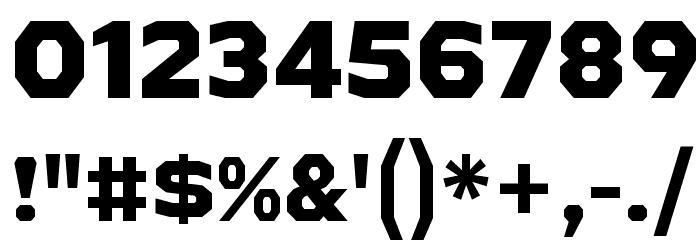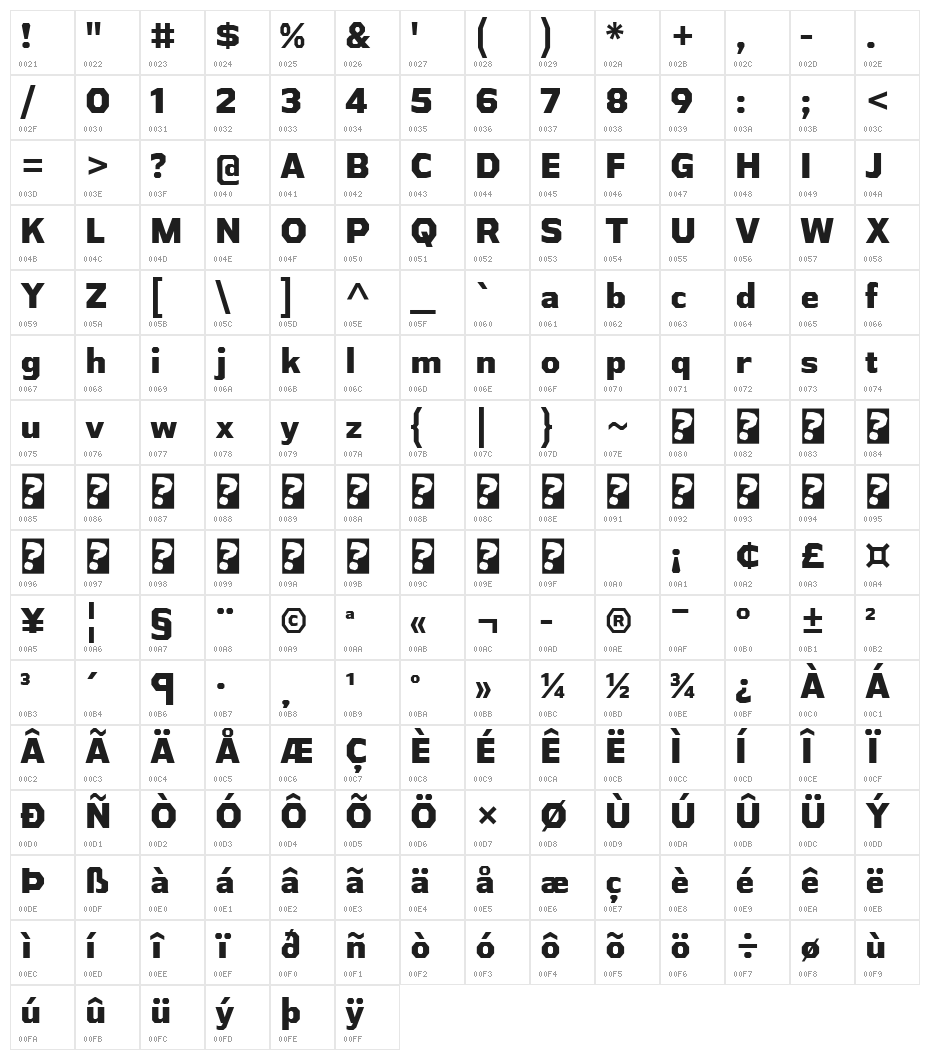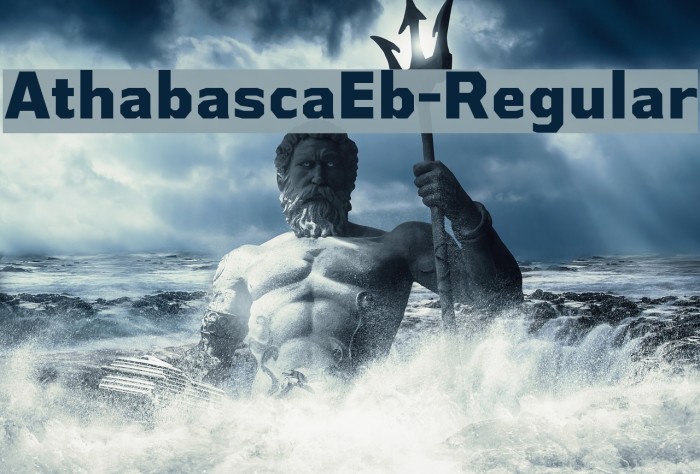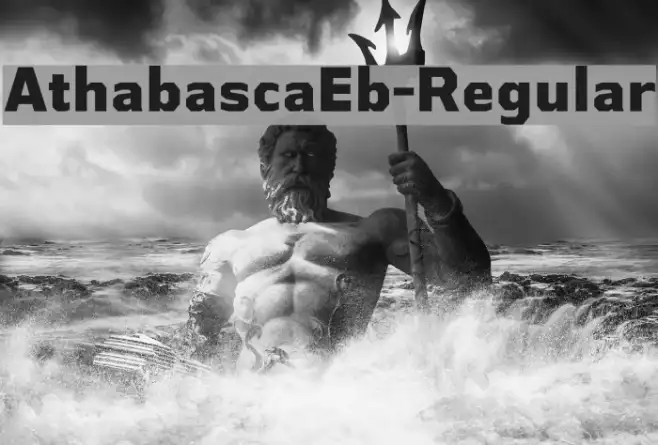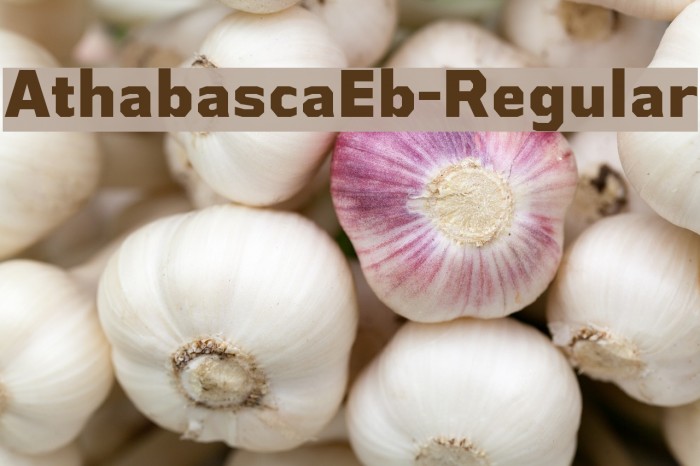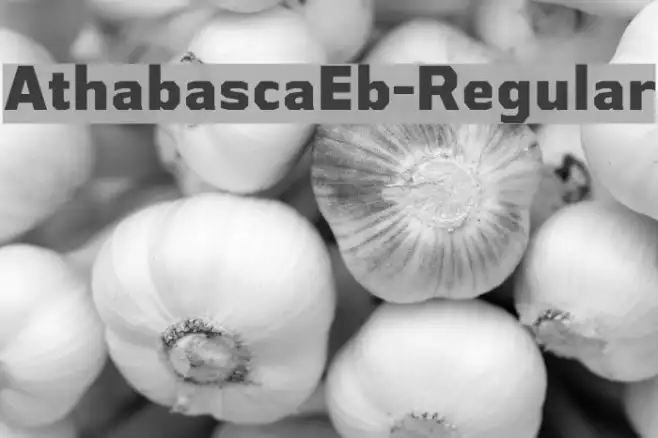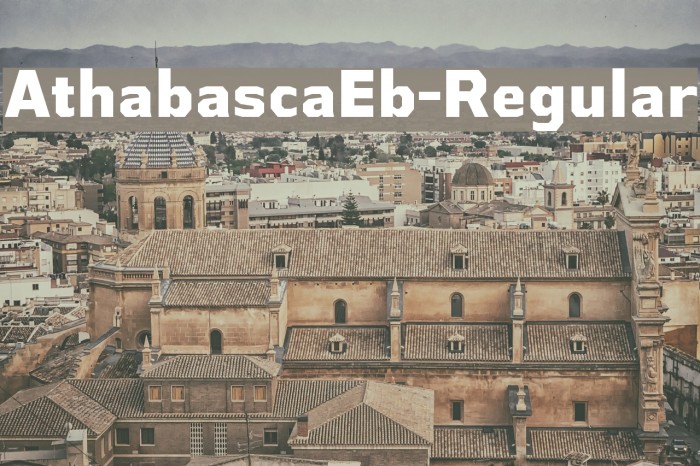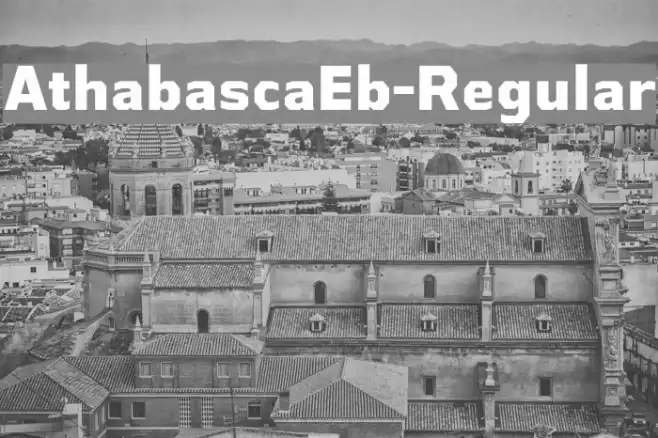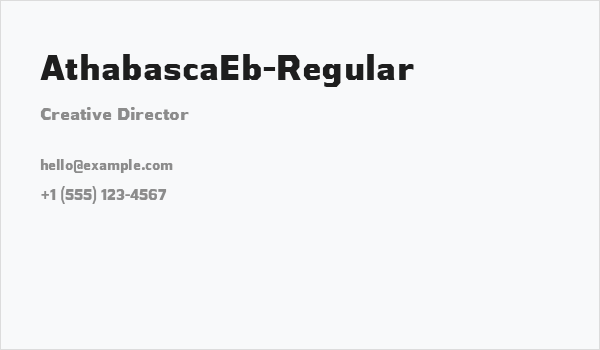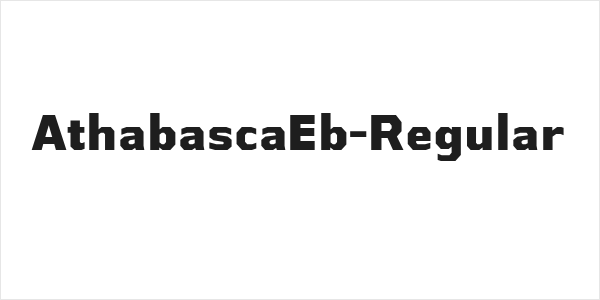
AthabascaEb-Regular Font
AthabascaEb-Regular Description
This font features a bold and robust design with strong geometric shapes and a commanding presence. The uppercase letters are particularly striking, with a blocky, angular style that conveys strength and stability. The lowercase letters maintain this boldness while offering a slightly softer edge, making them versatile for various applications. The numerals are equally bold, ensuring they stand out in any context. Special characters are designed with the same attention to detail, ensuring consistency across all glyphs. This font is ideal for making a strong visual impact, whether in headlines, posters, or branding materials.
| Proposed Projects | Ideal for branding, posters, headlines, and any project requiring a strong visual impact. |